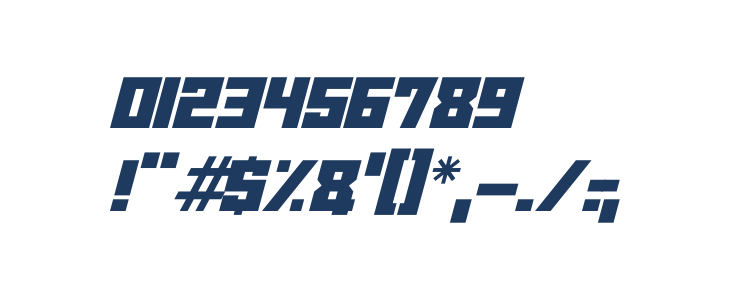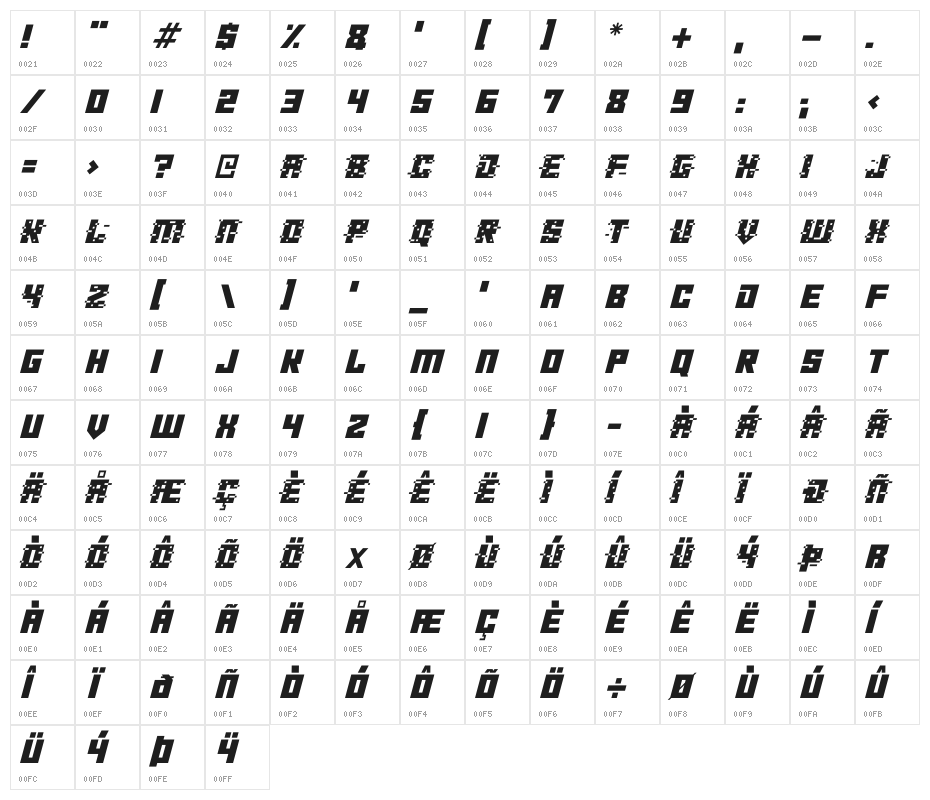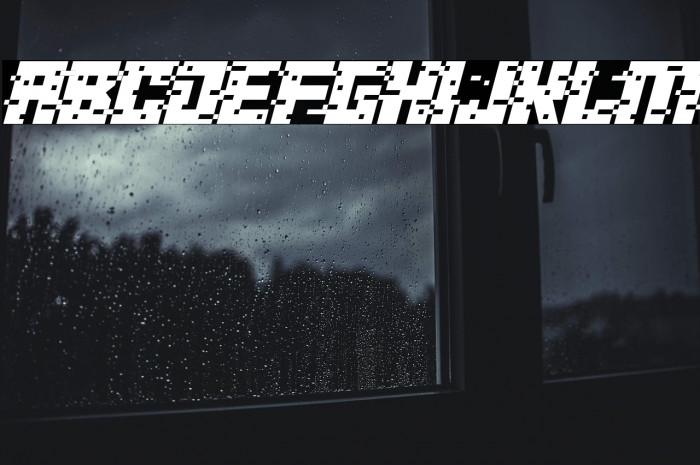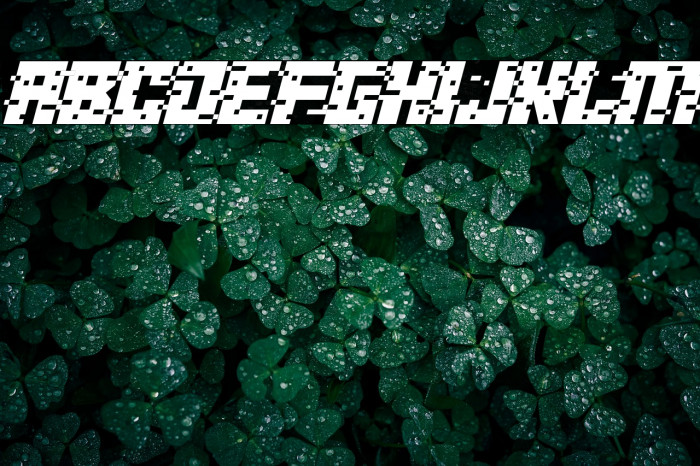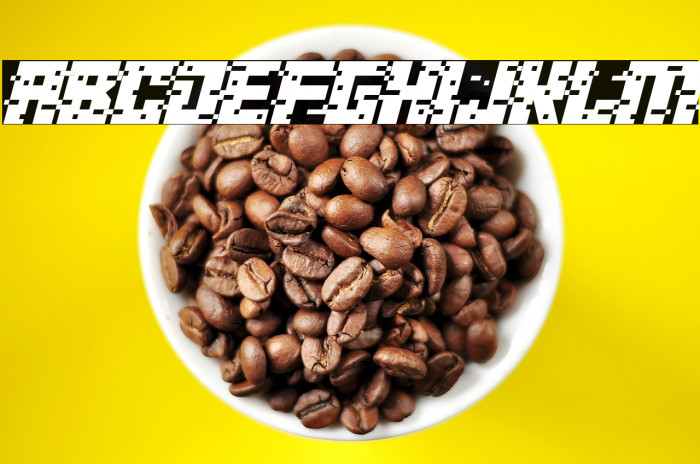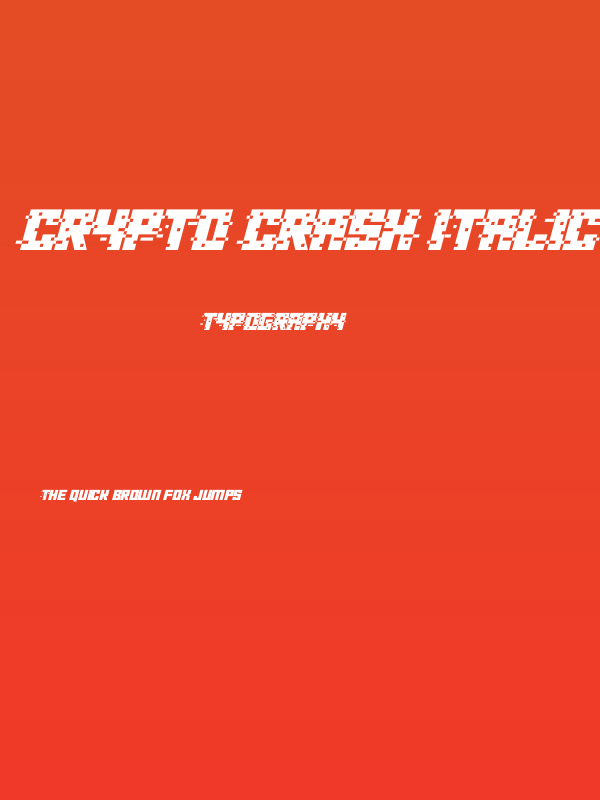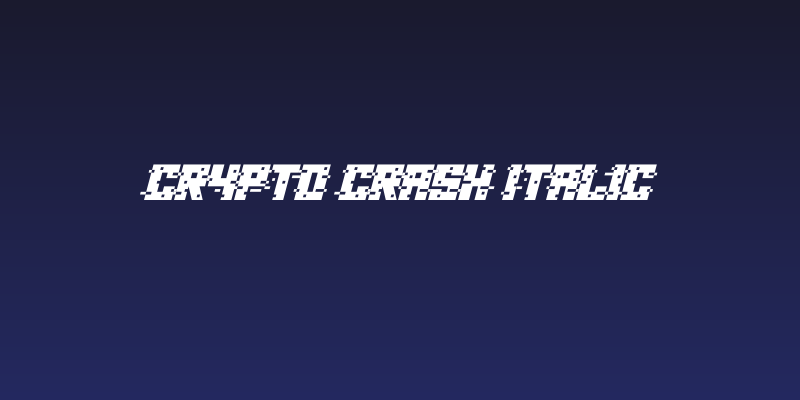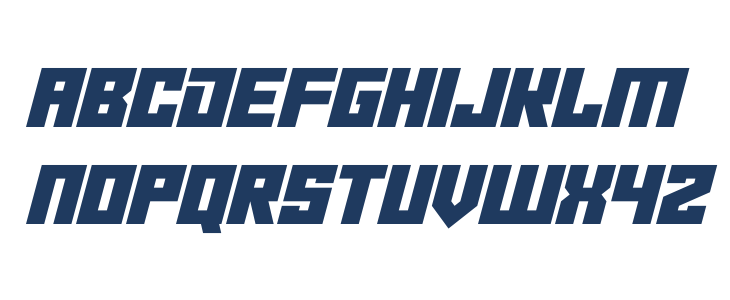
crypto CRASH Italic Font
crypto CRASH Italic Description
This font features a bold, angular design with a digital, glitch-like aesthetic. The uppercase letters are characterized by sharp edges and a blocky structure, creating a sense of movement and urgency. The lowercase letters maintain the same boldness and angularity, ensuring consistency across the typeface. Numbers and special characters are equally bold and angular, fitting seamlessly with the overall style. The italicized slant adds a dynamic feel, enhancing the futuristic and edgy appearance. This font is ideal for projects that require a modern, tech-inspired look.
| Proposed Projects | Ideal for tech-related branding, video game titles, digital art projects, and futuristic posters. |